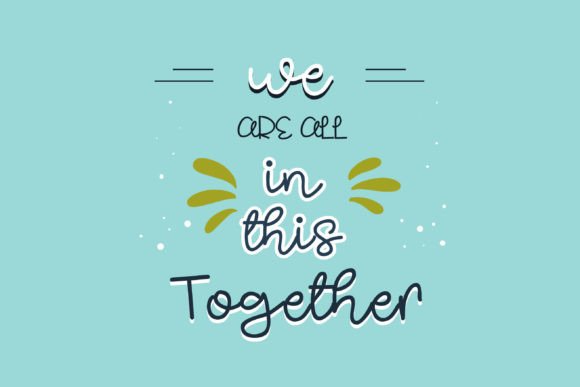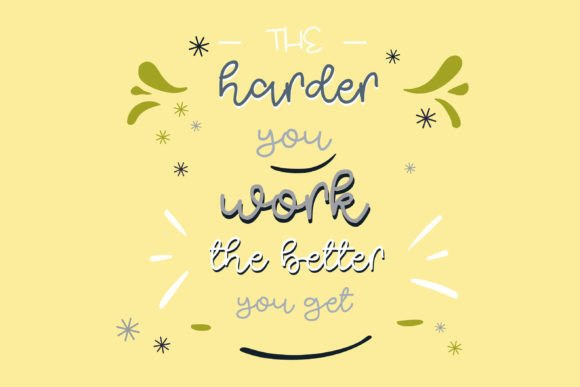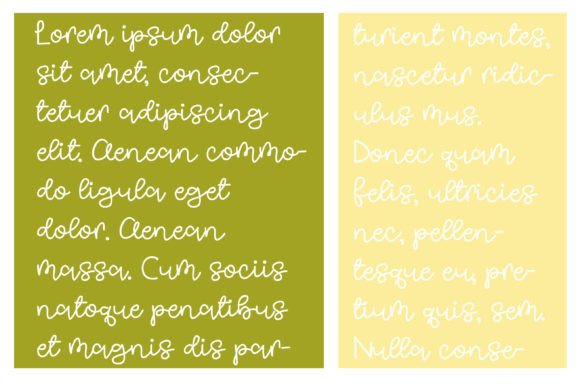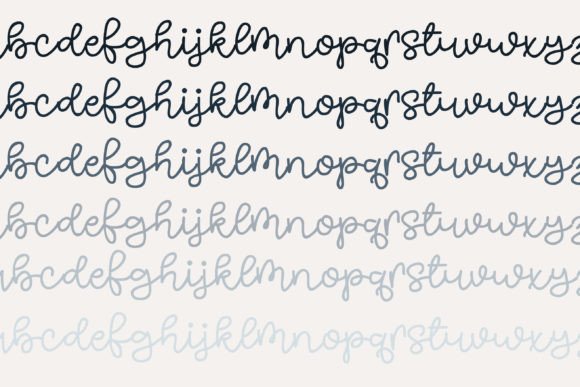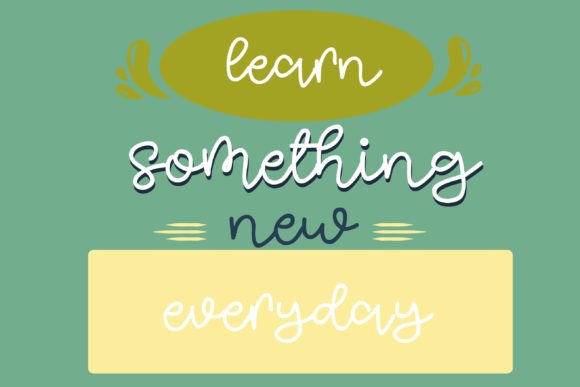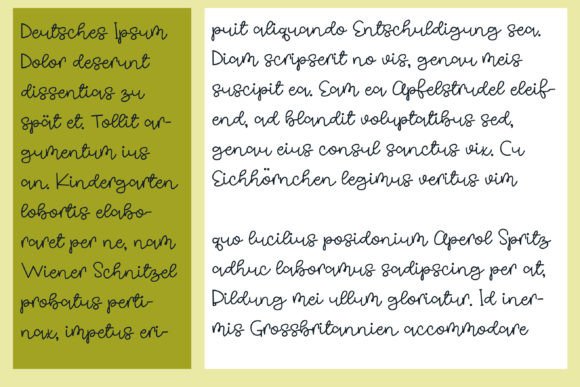
Introduction to Monkey Bone Font
As a designer, you’ve likely had those moments when you’re working on a project and you just can’t seem to get the right feel. The colors are off, the layout is wonky, and nothing seems to be quite right. But then, like a breath of fresh air, you stumble upon the perfect font – one that makes your design pop and brings a smile to your face. For many designers, that font is the Monkey Bone Font, a delightful cursive script that’s as playful as it is professional.
Whether you’re working on a children’s book, a birthday party invitation, or a social media campaign, the Monkey Bone Font is the perfect design resource to add a touch of joy to any project. With its soft, rounded curves and bouncy lines, this font is sure to bring a smile to the faces of your audience.
Key Features of Monkey Bone Font
- High-quality design resource with a unique, quirky style perfect for creative projects
- Unique characteristics include a hand-drawn feel and a wide range of expressive characters
Honest Review: Monkey Bone Font
What works well is the creative freedom that Monkey Bone Font offers. The unique, quirky design style lends itself well to artistic projects and adds a touch of whimsy to any layout. The high-quality design ensures that the font looks great even when used in large sizes or on a transparent background.
- Unique design style
- Suitable for artistic projects
However, I do have a few reservations. The Monkey Bone Font is a bit limited in terms of versatility, making it less suitable for formal or professional projects. Additionally, the font may not be suitable for projects that require a lot of fine-tuning or customisation.
Overall, I’d say the Monkey Bone Font is a great design resource for creatives who are looking for a unique, high-quality font to add some personality to their projects. Just be aware of its limitations and use it in the right context.
The Monkey Bone Font is perfect for use in creative projects, such as graphic design, digital art, and print design. Use it to create eye-catching headings, titles, and text effects that add a unique touch to your design.